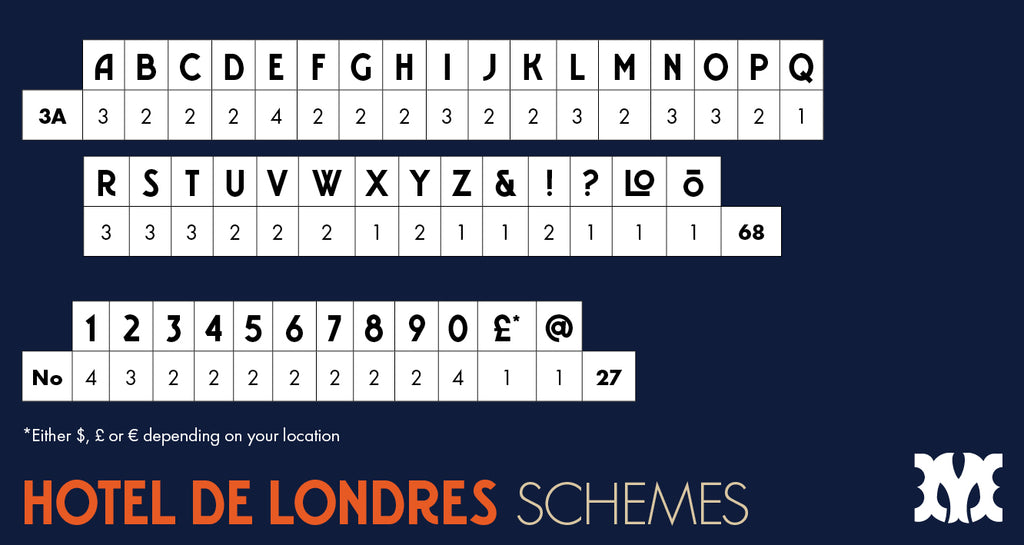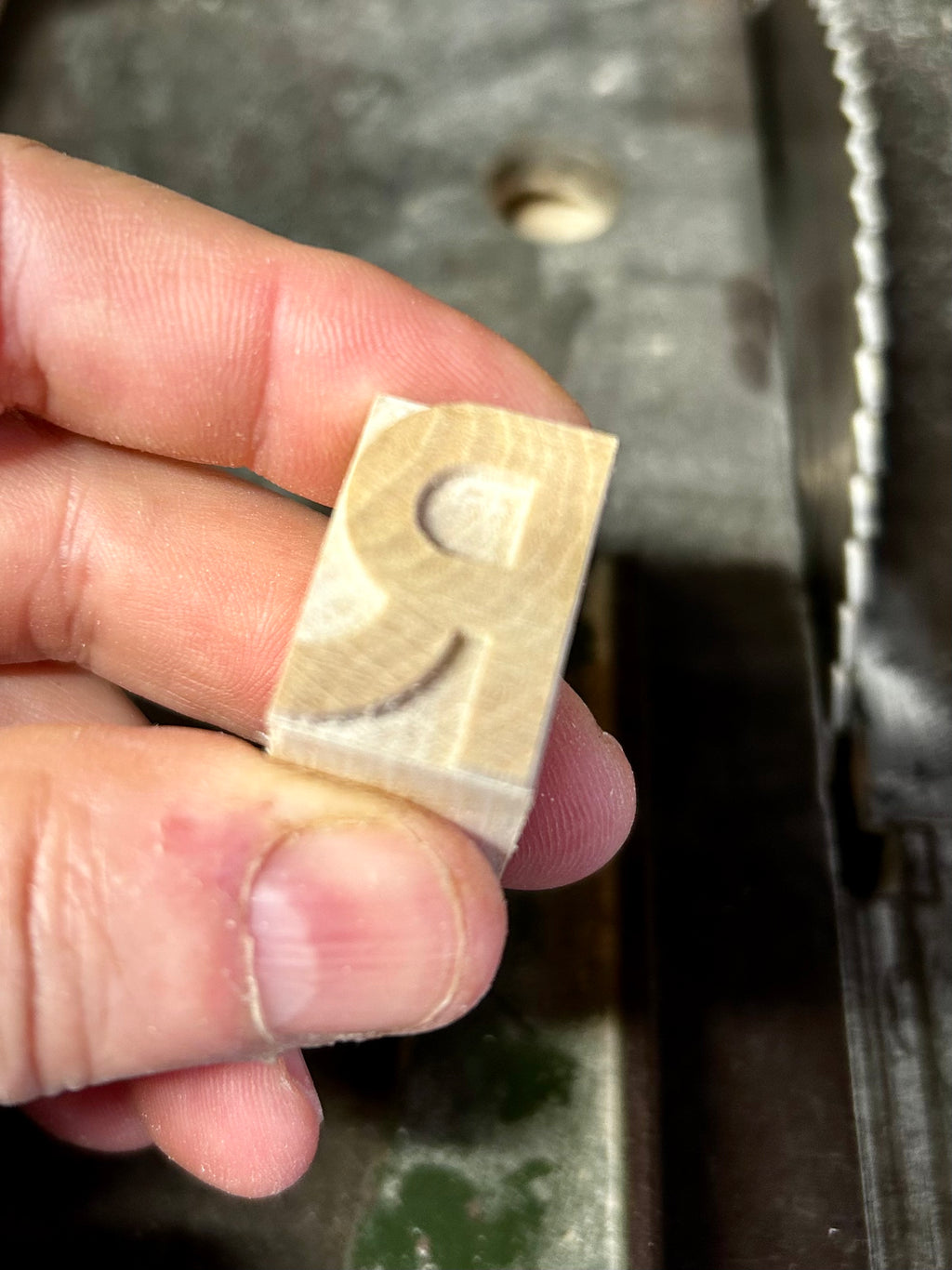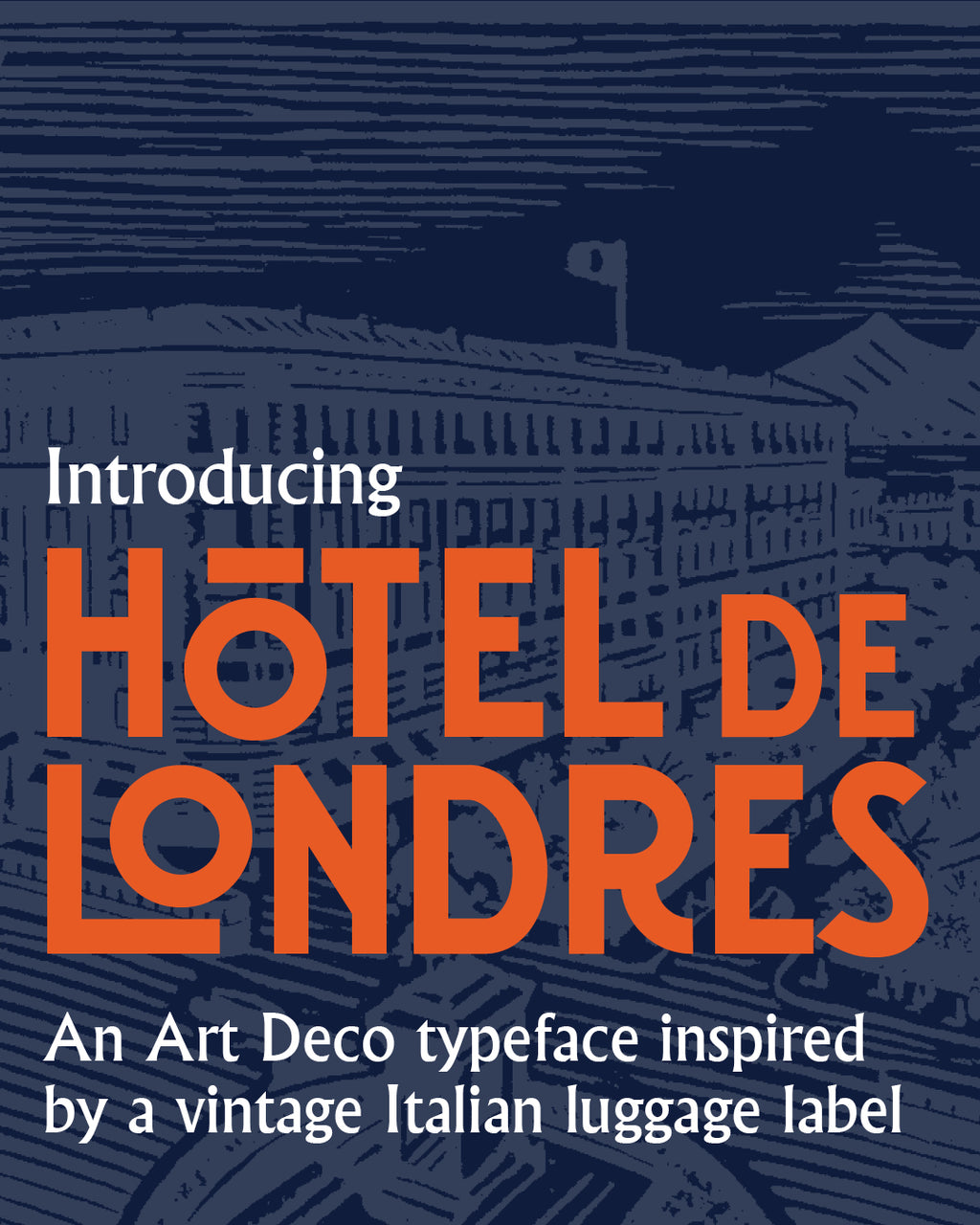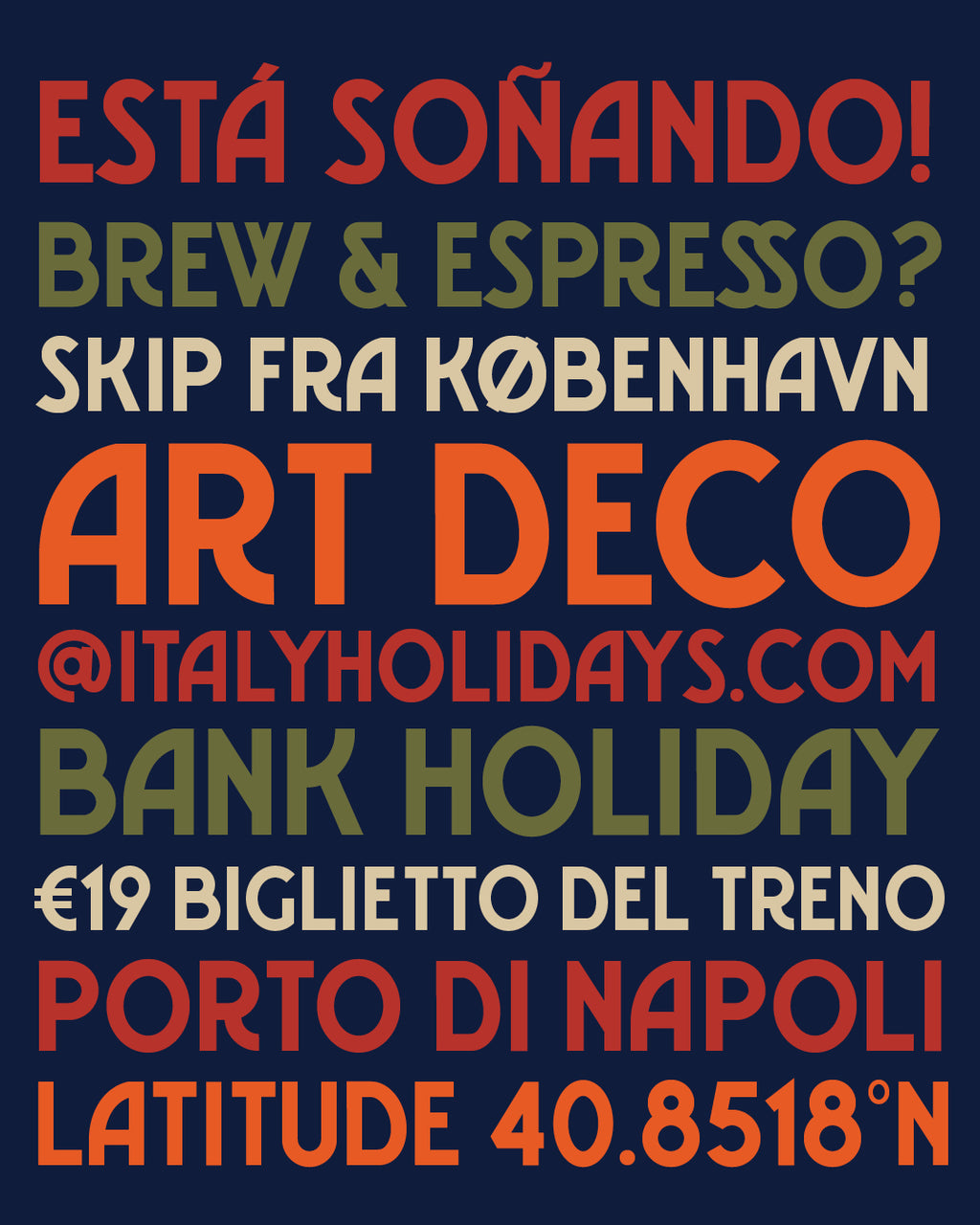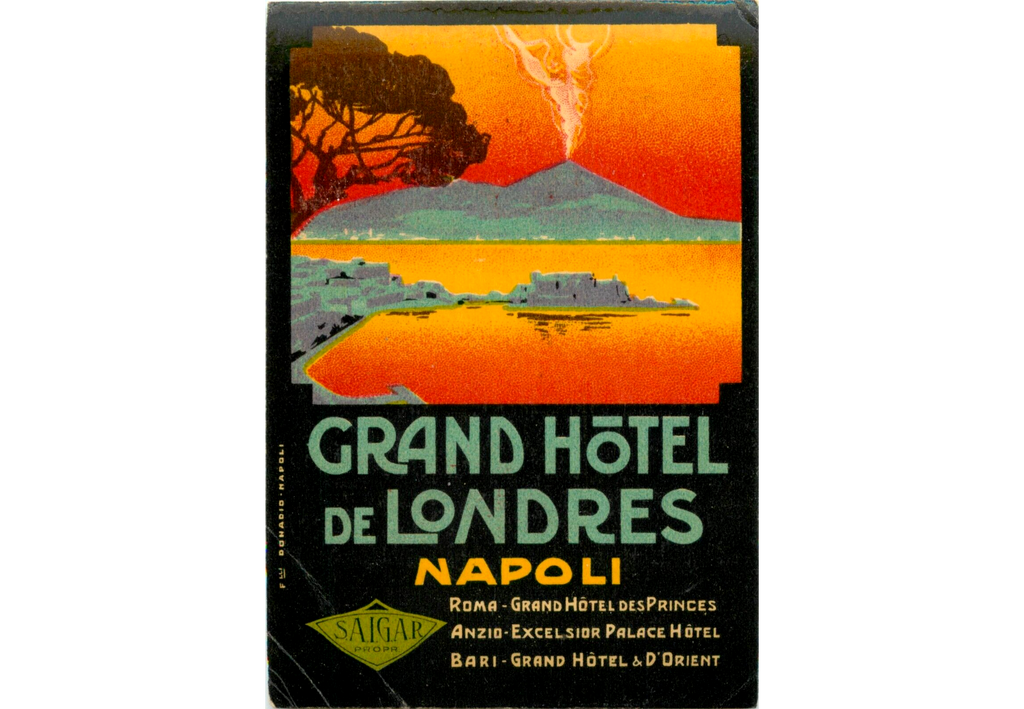
'Hotel de Londres' letterpress woodtype typeface
Introducing 'Hotel de Londres' - an Art Deco typeface based on a vintage Italian luggage label from 1925.
6 line (25.4mm) cut from end grain English hardwood using a combination of modern CNC technology and traditional hand woodworking tools (including an original printers saw), made to English type-high (0.918in or 23.3mm) within plus or minus 0.1mm tolerance, sealed with shellac and hand finished with a traditional polished printing surface.
'Hotel de Londres' has full language support so whether you’re printing in Norwegian, Dutch, French etc ‘Hotel de Londres’ is for you! To make things easy when ordering please select a Languages set and I will get in touch to discuss which blocks you would like. Available in sets of 10 blocks.